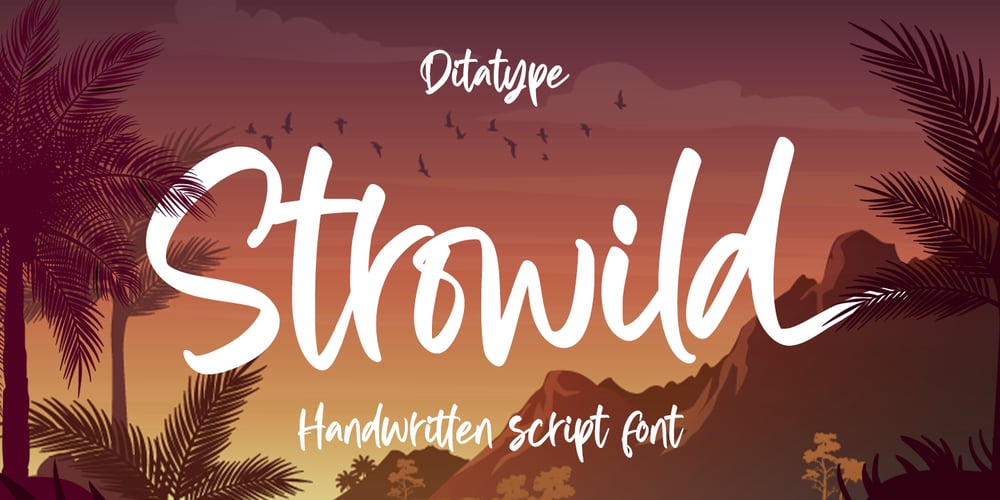
Strowild Font Family was designed by Donis Miftahudin and published by Ditatype. Strowild contains 1 styles and family package options. Strowild is a modern handwritten font. Made for any professional project branding that need a modern and attractive typeface. It is the best for logos, branding and quotes. Every letter has a unique and beautiful touch.Includes:Strowild (OTF)Features: Beautiful Ligatures Stylistic Set Multilingual Support PUA Encoded Numerals and Punctuation Thank you for downloading premium fonts from Dita Type